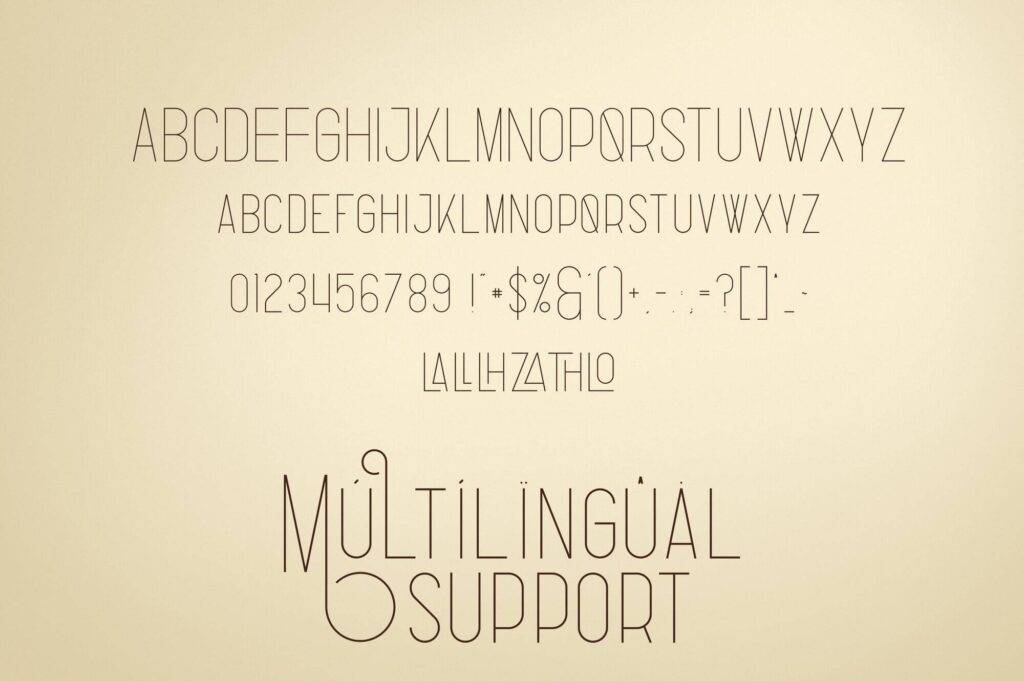
Fabulist Font
Fabulist is a modern display typeface featuring a large number of alternates. It’s a highly adaptable typeface that performs well in both large and tiny sizes. Uppercase, lowercase, numeric, punctuation, and Symbol Regular are all included in this gorgeous Font. The fact that this Font offers so many alternative glyphs and Ligatures is really incredible. Multilingual support is also included in the Typeface.
This Font supports the following languages: Basque, Catalan, Cornish, Croatian, Czech, Danish, Dutch, Embu, English, Esperanto, Estonian, Faroese, Filipino, Finnish, French, Galician, German, Hungarian, Icelandic, Indonesian, Irish, Italian, Malay, Maltese, Manx, Maori, Meru, Morisyen, North Ndebele, North Ndebele Norwegian Bokmal, Norwegian Nynorsk, Nyankole, Oromo, Polish, Portuguese, Romansh, Serbian, Slovak, Slovenian, Spanish, Swedish, and Swiss German. It’s easy to turn the lovely Typeface into a web font. OTF and TTF are the two formats in which the Typeface is offered. Vladfedotovv created and published the Font. The Font was last updated on September 23, 2019. Once you start using the font, you will start loving the font for sure.
On any form of natural wallpaper, the Font looks fantastic. It instantly adds a touch of sophistication to any endeavour. Fabulist is ideal for branding projects, homeware designs, product packaging, magazine headings, and even as a classy text overlay on any backdrop image. The Font also looks stunning on magazine covers or pages.